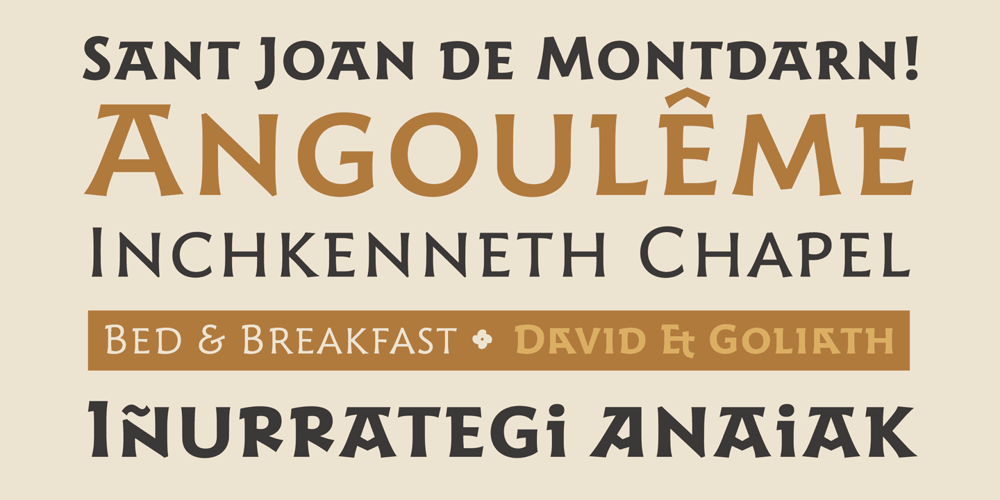
Harri Font Family was designed by Juan Luis Blanco and published by Blancoletters. Harri contains 5 styles and family package options. Harri –“stone” in Basque language– is a display font based on the peculiar letter forms used in signs and fascias all over the Basque Country. This idiosyncratic lettering style, very often used as an identity signifier, evolved from ancient inscriptions carved on gravestones which can still be found in the French part of the Basque Country (Behe Nafarroa, Lapurdi and Zuberoa).Harri takes some of its more significant features from those engraved letter forms, but also from the current overemphasized shapes derived from them, while keeping in sight their antecessors: the Romanesque inscriptions and ultimately the Roman Capitals. Gerard Unger once said “the black version of a font is a caricature of the regular”. This may explain how the odd heavy shapes in use in the Basque Country today might have evolved from their engraved roots, which are already an interpretation of Romanesque and Roman letter forms.This evolution is echoed in Harri through its weights, from the clean formal Roman-inspired light to the extreme expressive Basque-style extra bold.